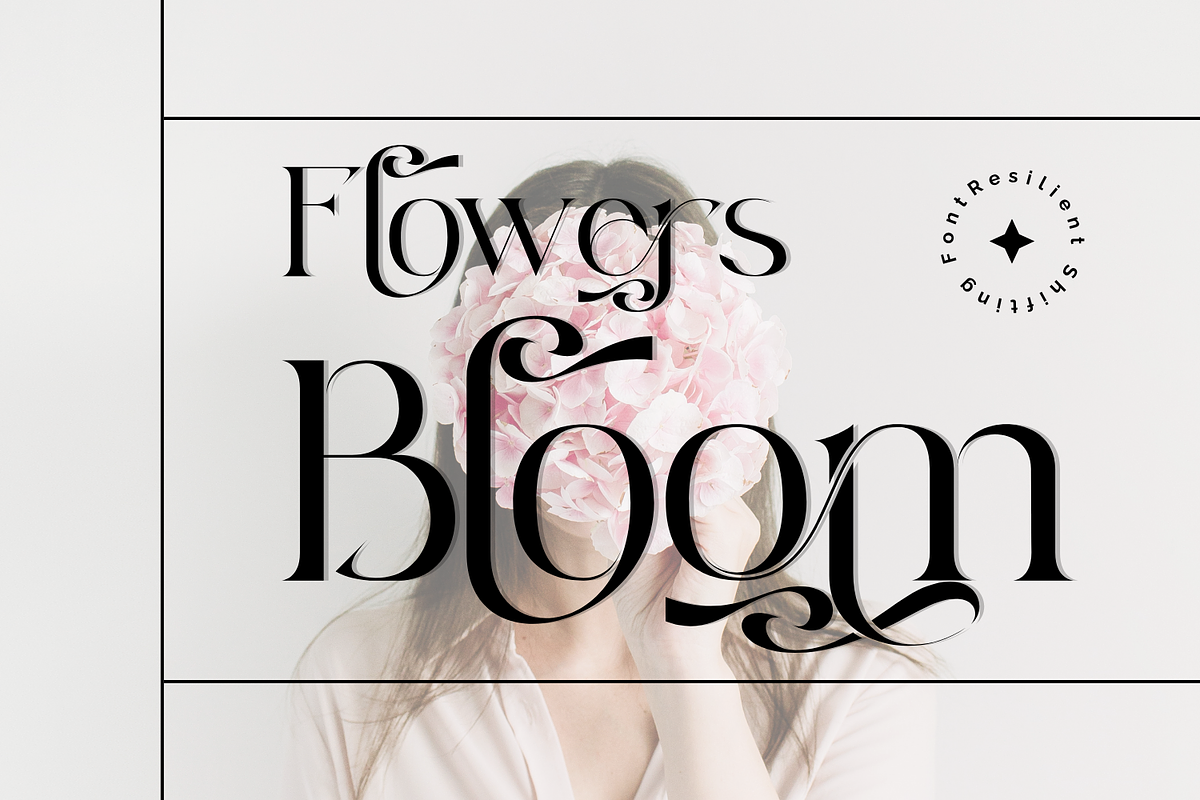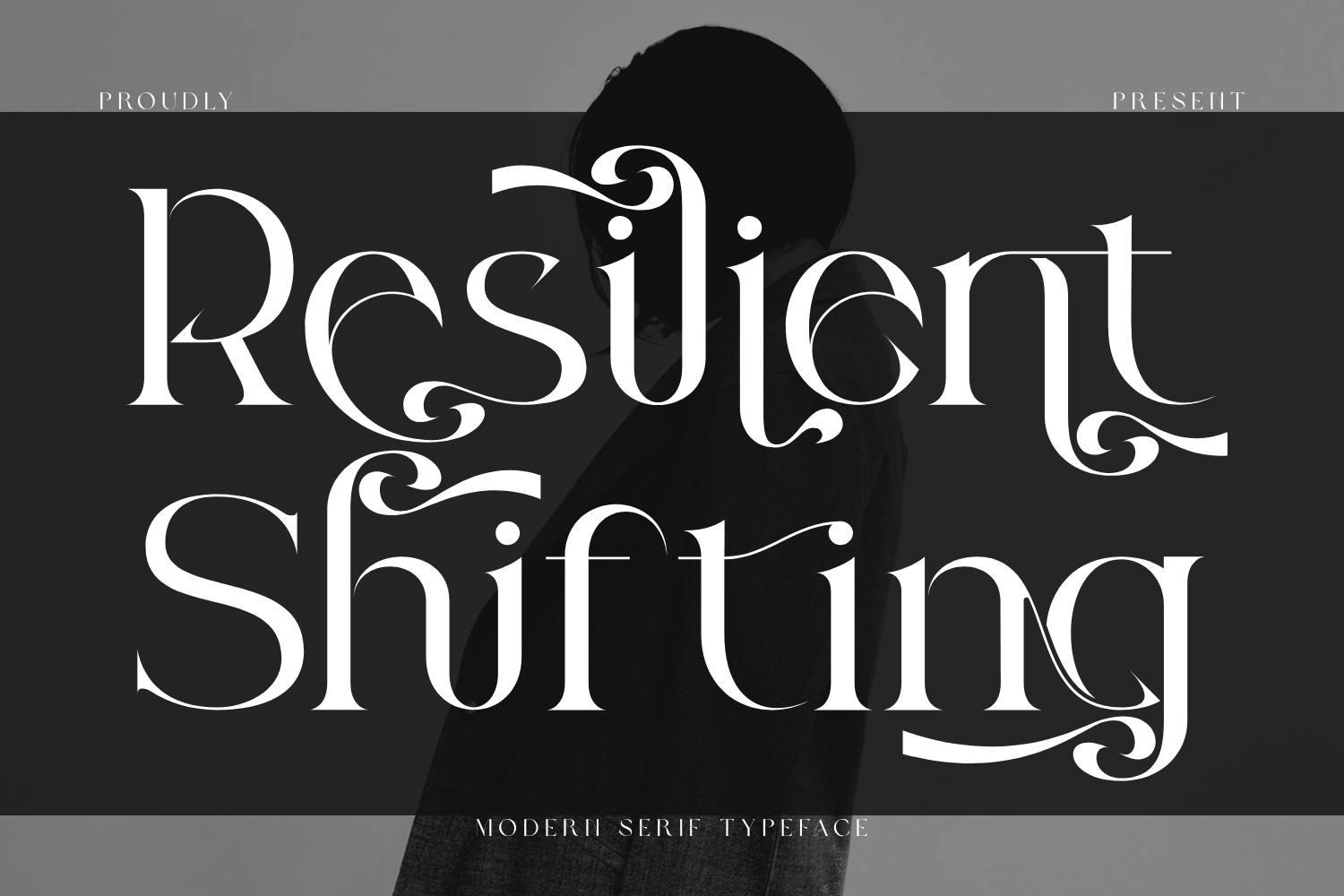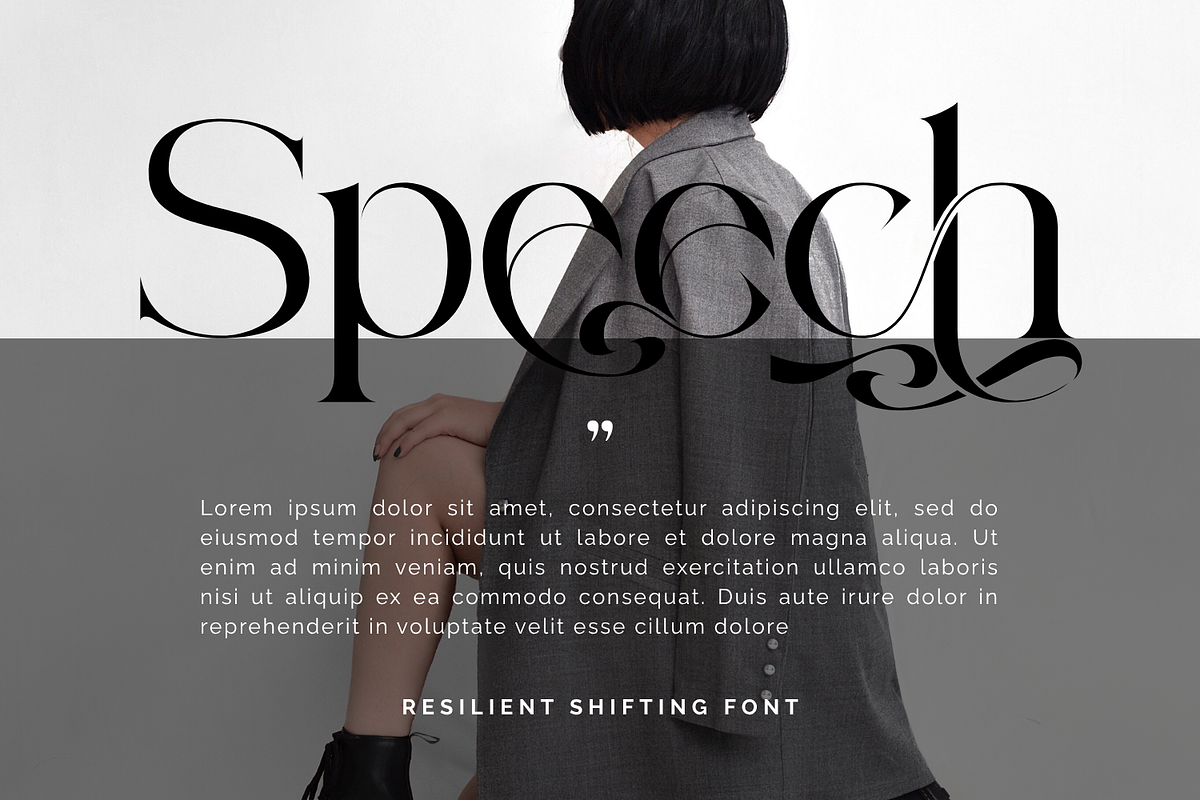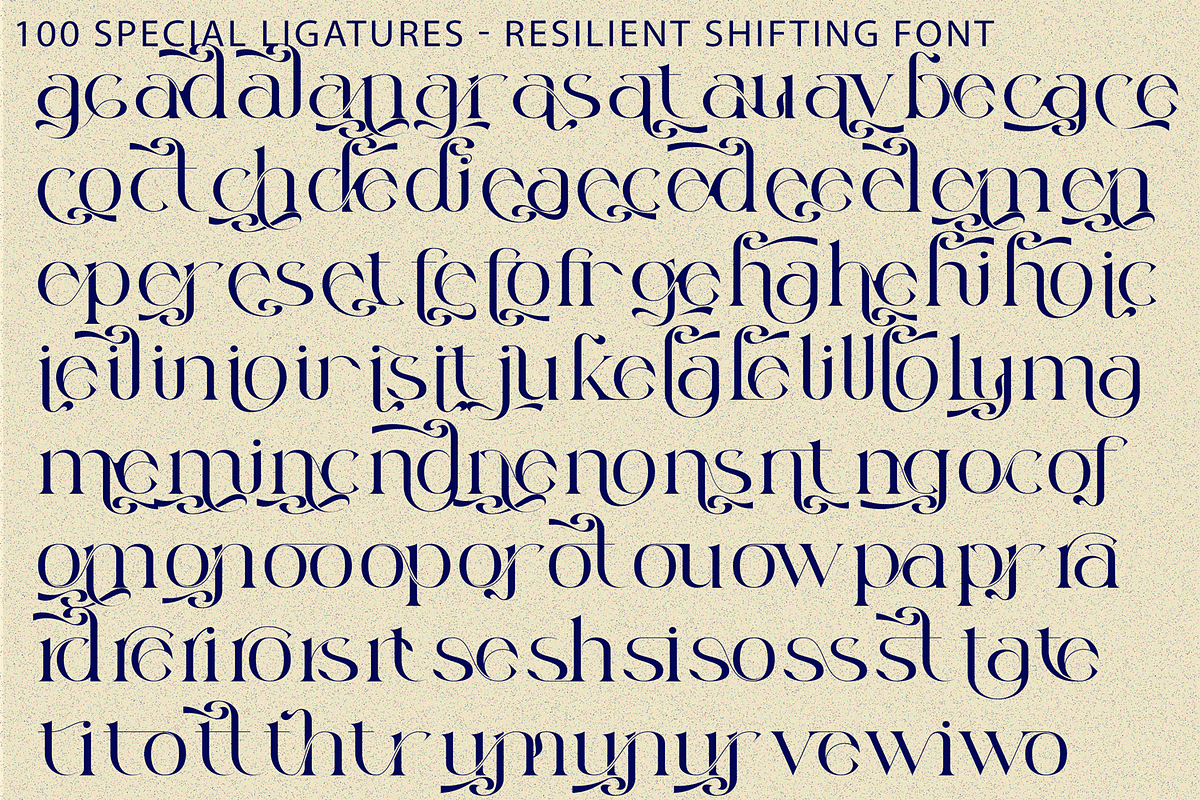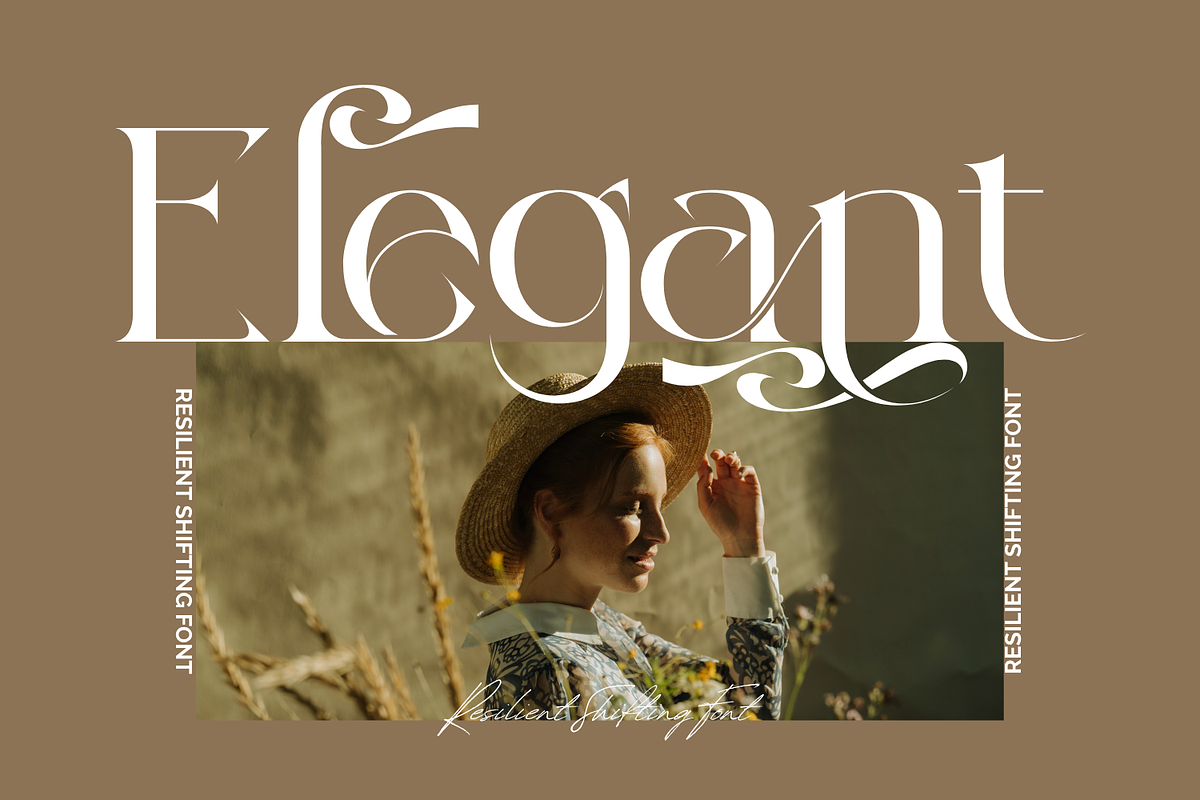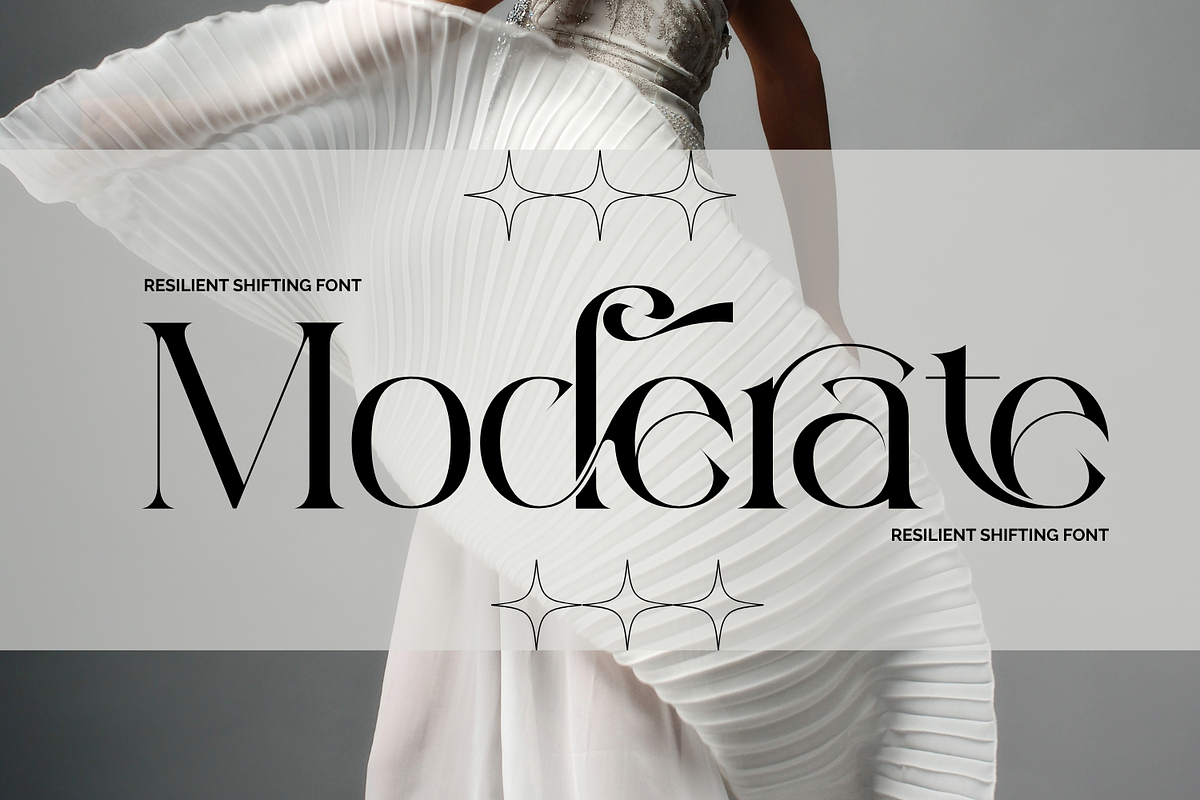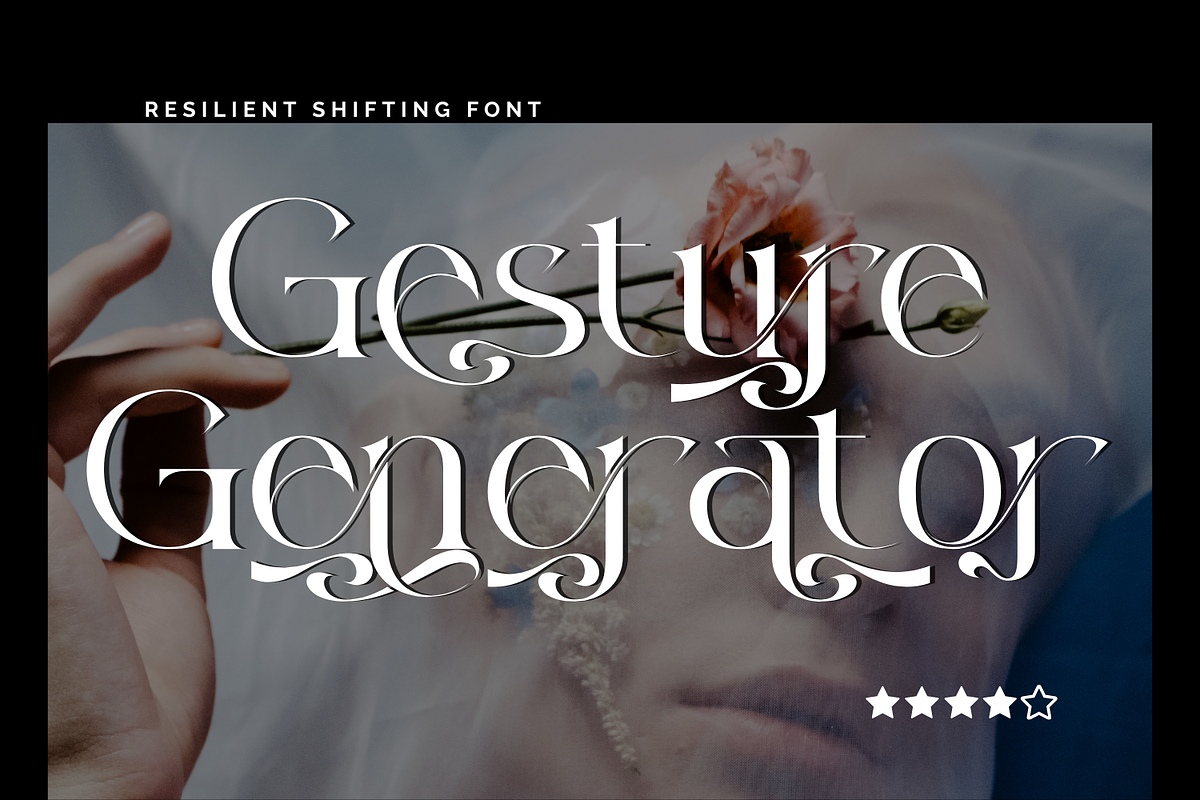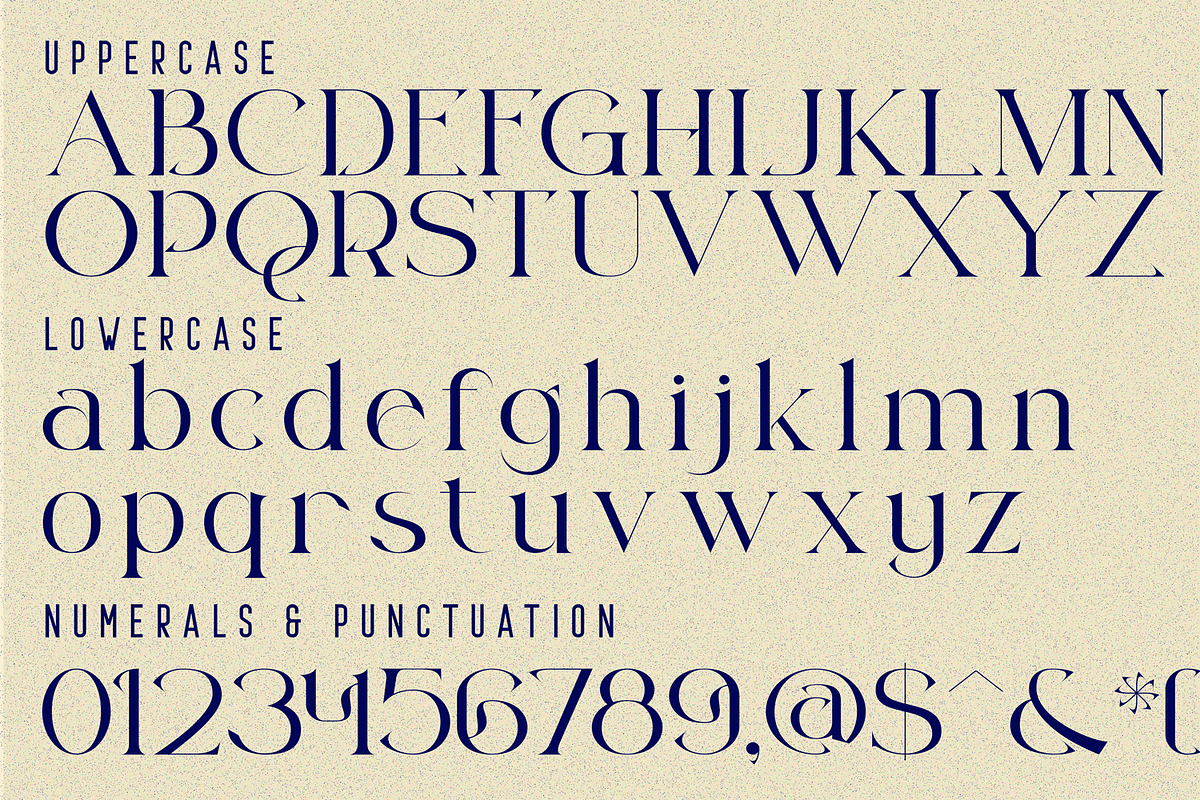
Resilient Shifting - Elegant Font
Resilient Shifting - Elegant Font is an elegant decorative serif typeface that beautifully combines timeless sophistication with artistic ornamentation. Featuring refined high-contrast strokes, graceful curves, and luxurious swash details, this font delivers a striking balance between classic elegance and modern style. Inspired by luxury fashion editorials and romantic calligraphy, Resilient Shifting showcases beautifully sculpted letterforms adorned with flowing terminals, decorative curls, and sophisticated flourishes. Every character is carefully crafted to create a sense of movement, charm, and visual harmony while maintaining excellent readability.
🔤Features:
Uppercase & Lowercase Letters
Around 100 Special Ligatures & Alternates
Accented Characters for multilingual support
🔤About 100 ligatures combined with Stylistic Alternates Font:
ac ad al an ar as at au av be ca ce ch co ct de di ea ec ed ee el em en ep er es et fe fo fr ge ha he hi ho ie ic il in io ir is it ju ke la le li ll lo ly ma me mi nc nd ne ng no nt ns oc of om on oo op or ot ou ow pa pr ra rd re ri ro rs rt se sh si so ss st ta te th ti to tr tt um un ur ve wi wo